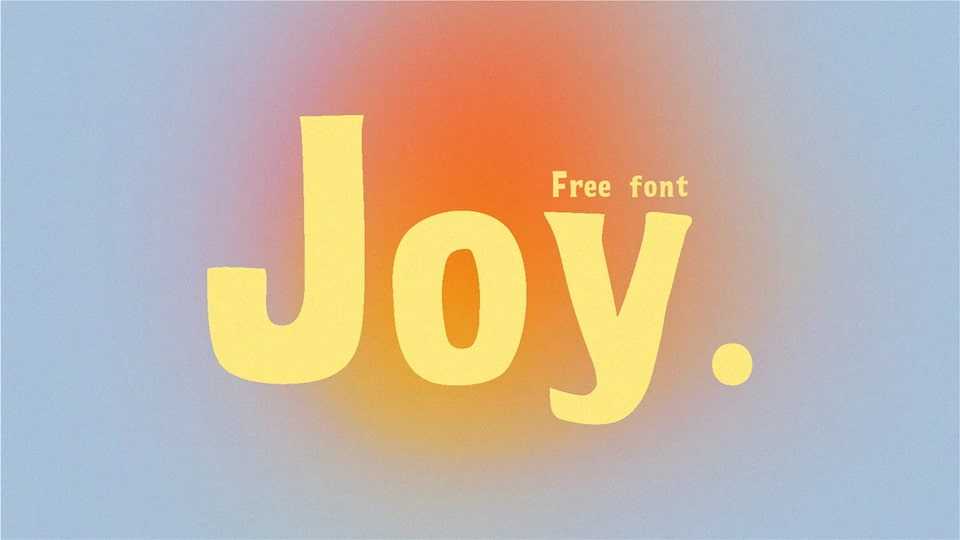
Download Joy font, a playful and warm typeface designed to convey positivity and spontaneity. Its soft, slightly irregular curves give it a handcrafted, human feel while remaining modern and easy to read.
Designer: Abdelaziz Chikh